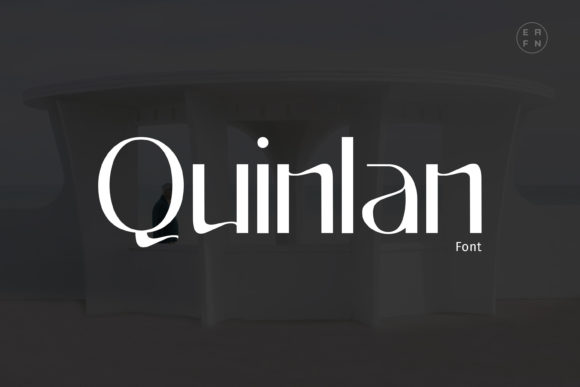
Introducing Quinlan Font, the ultimate display font that captivates audiences with its cool and distinctive style. Created by the renowned BeeType, Quinlan stands out as a font of choice for designers seeking excellence in their projects.
With its neat and simple structure, Quinlan effortlessly blends into a myriad of designs, making it an incredibly versatile font. Whether you're crafting posters, logos, branding materials, or digital graphics, Quinlan seamlessly adapts to your creative vision.
Experience the transformative power of Quinlan as it elevates your designs to new heights of sophistication and engagement. Its meticulously crafted characters exude a charm that captivates viewers, leaving a lasting impact on their minds.
Unlock the endless possibilities of Quinlan and witness how it breathes life into your creative endeavors. Its versatility knows no bounds, allowing you to explore a vast spectrum of design concepts and styles. Let Quinlan be your trusted companion as you embark on a journey of visual storytelling.
Don't settle for ordinary fonts that blend into the background. Embrace the extraordinary with Quinlan and watch as your designs come alive with captivating beauty and unwavering style. Unleash your creativity and let Quinlan guide you towards design brilliance.
Embrace Quinlan today and elevate your designs to the next level. Experience the fusion of elegance and functionality as Quinlan transforms your creative dreams into stunning realities. Join the ranks of designers who have discovered the magic of Quinlan and unlock the door to design excellence.